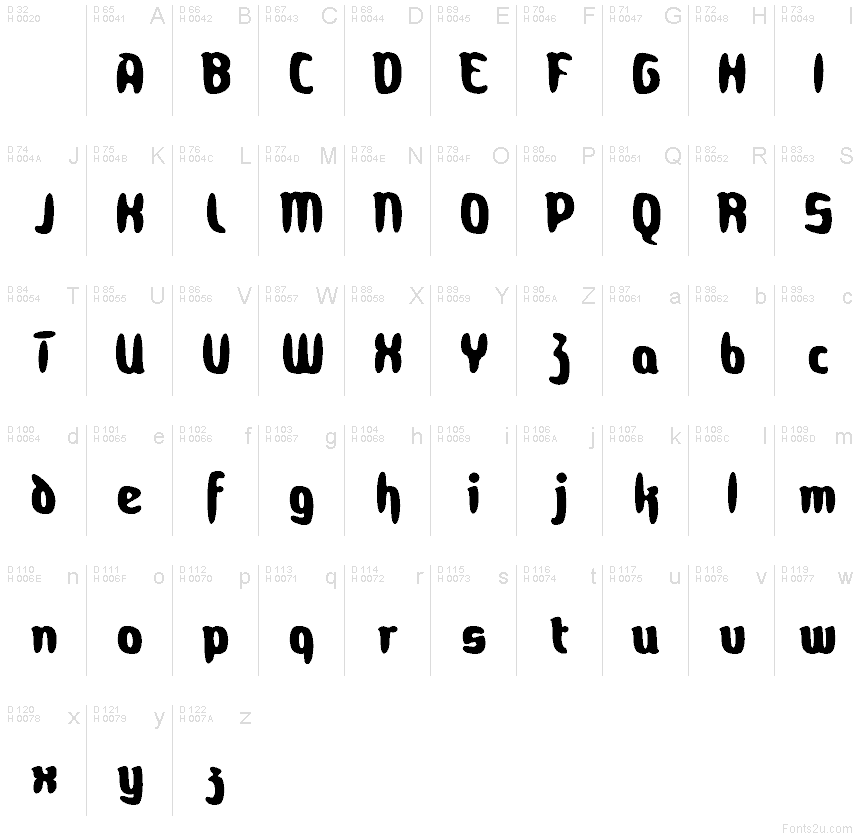
CSCloserDrawn-Regular Demo
CS Closer Drawn font by Craft Supply Co. is a playful cartoon display font that captures attention with its rounded, slightly irregular shapes. Its bold presence and casual aesthetic create an organic feel that can easily enhance modern applications.